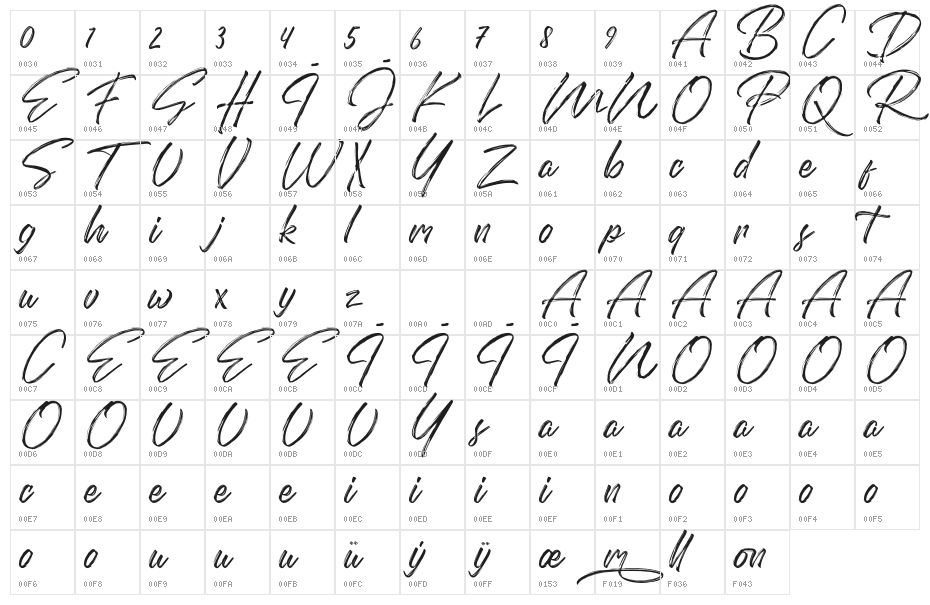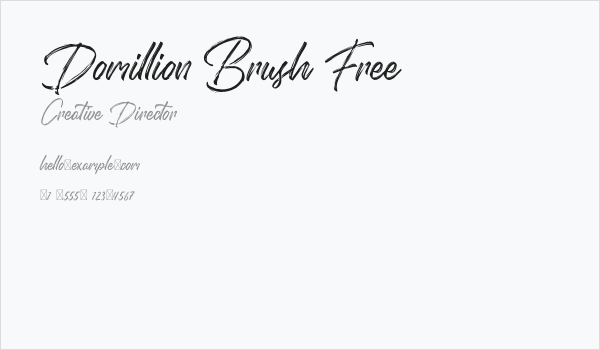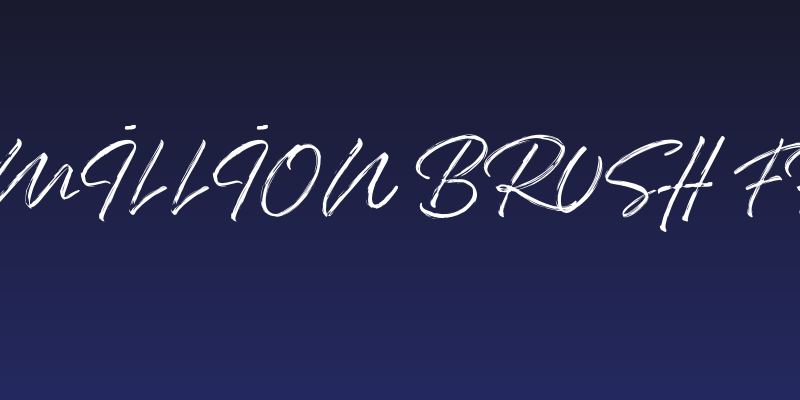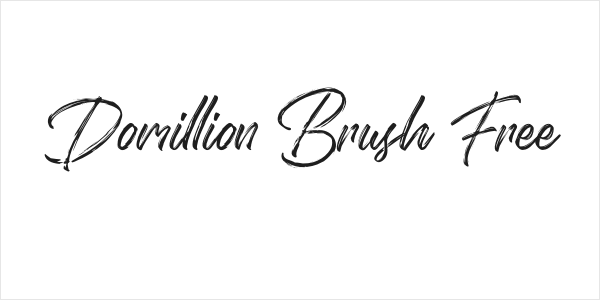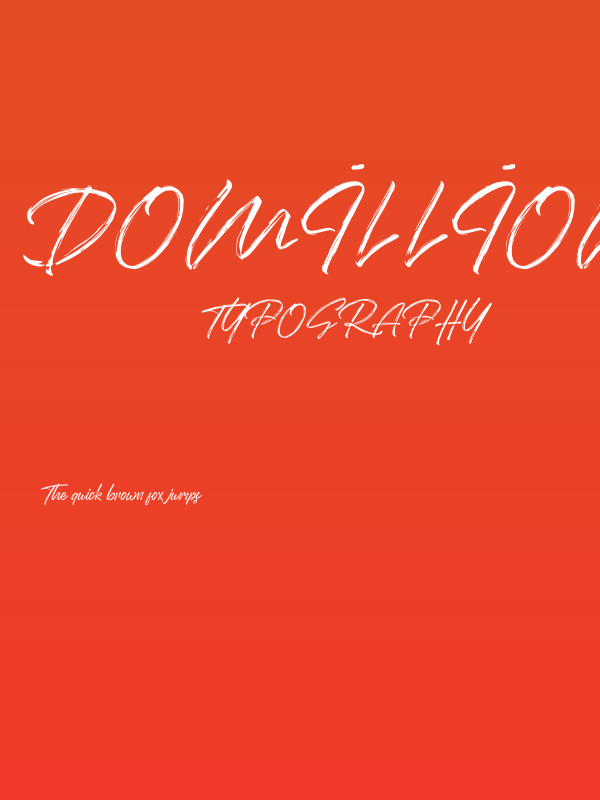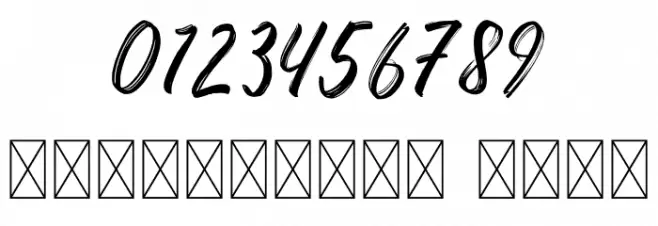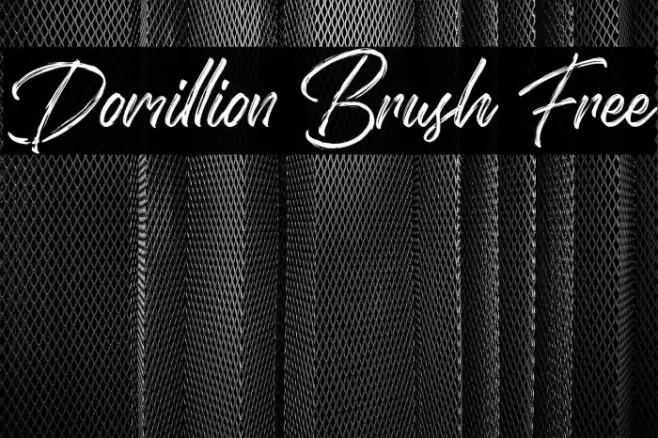
Domillion Brush Free Font
This font exudes a dynamic and energetic feel, characterized by its brush script style. The letters are fluid and connected, giving a sense of movement and spontaneity. The uppercase letters are slightly more structured, while the lowercase letters exhibit a more casual and free-flowing form. The strokes vary in thickness, adding a lively contrast that enhances its expressive nature. This font is perfect for projects that require a personal touch or a creative flair, such as invitations, posters, or branding materials. Its artistic style makes it stand out, capturing attention with its bold and playful appearance.
| Proposed Projects | Ideal for invitations, posters, branding, and creative projects. |